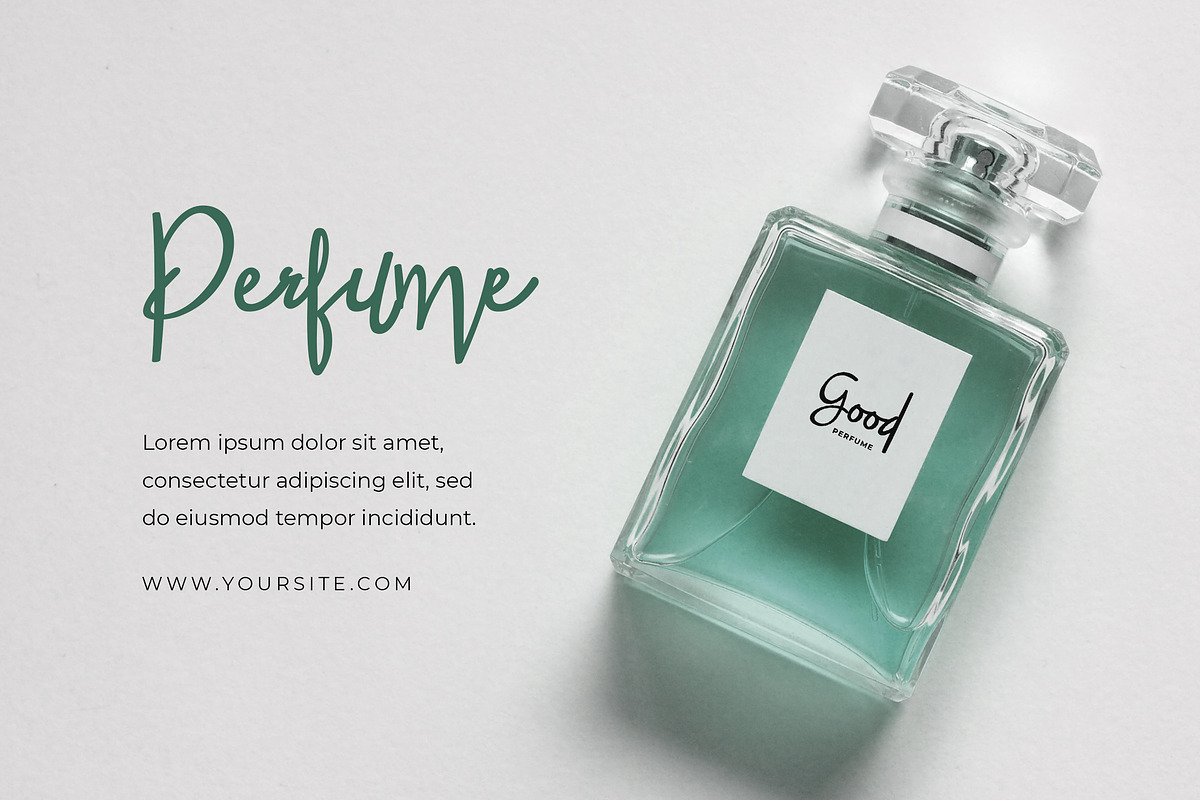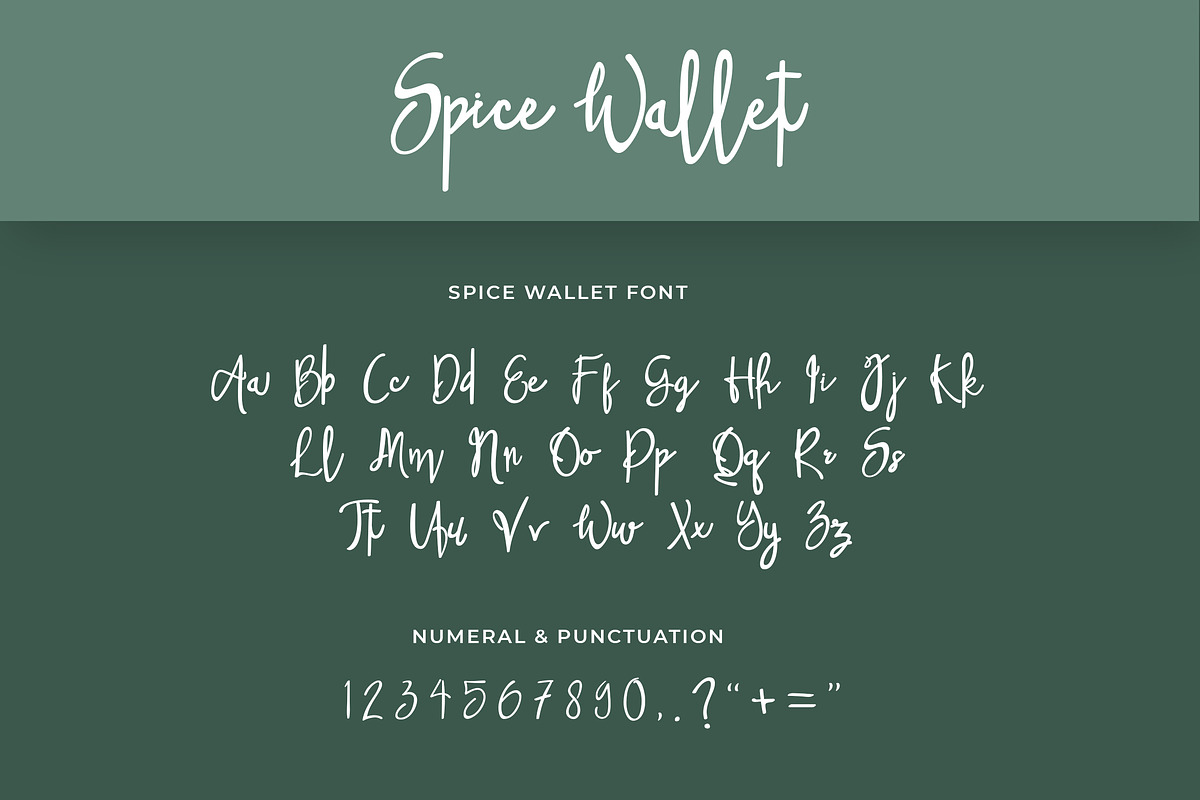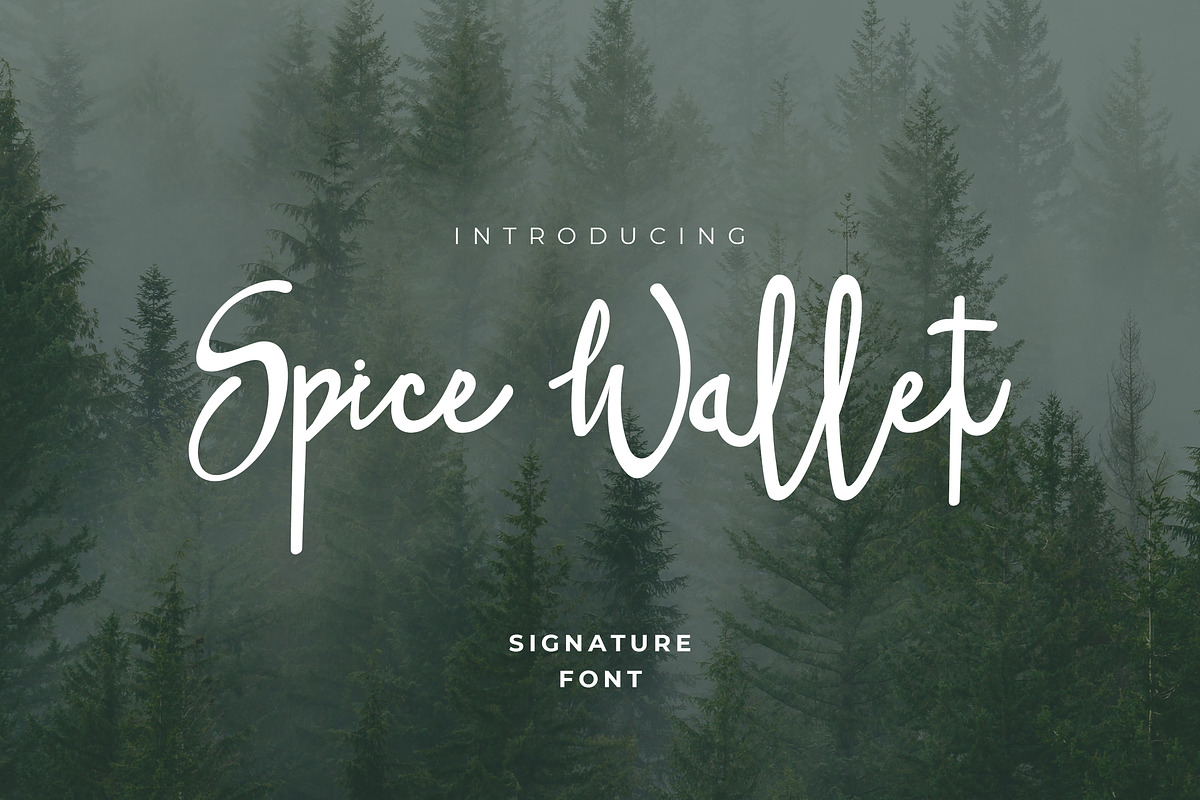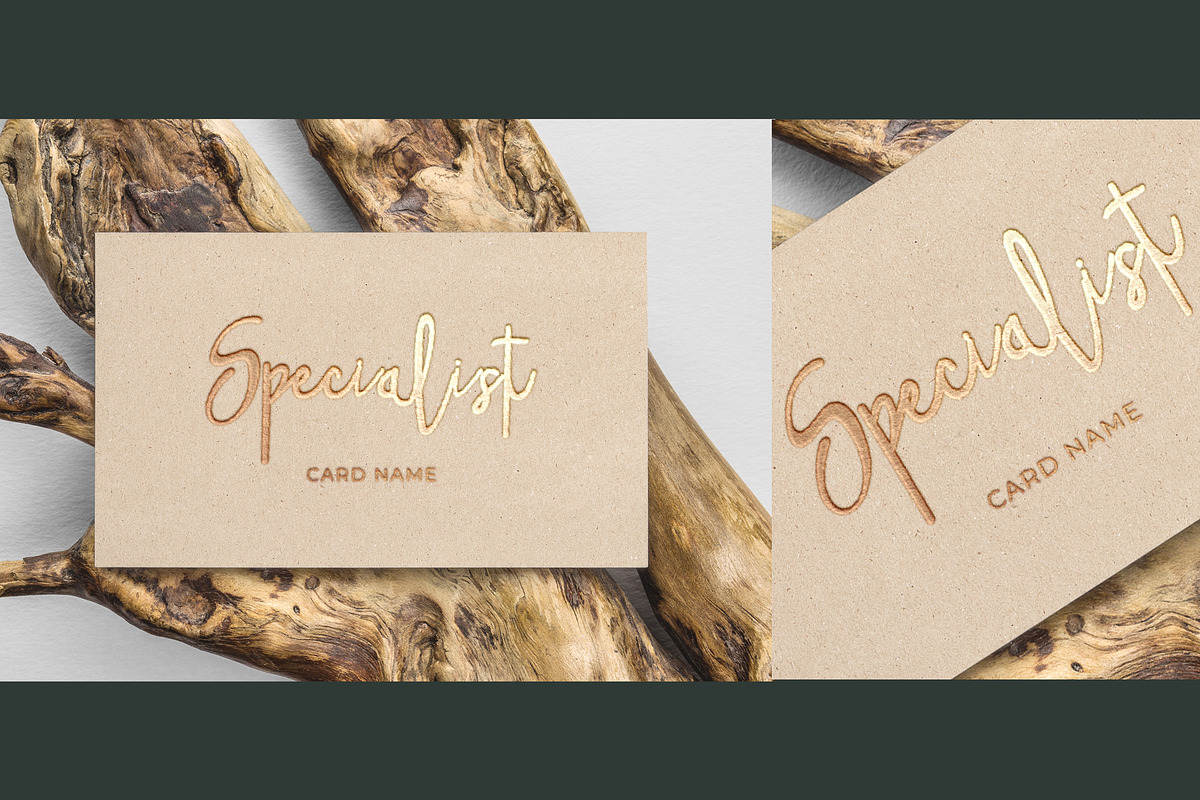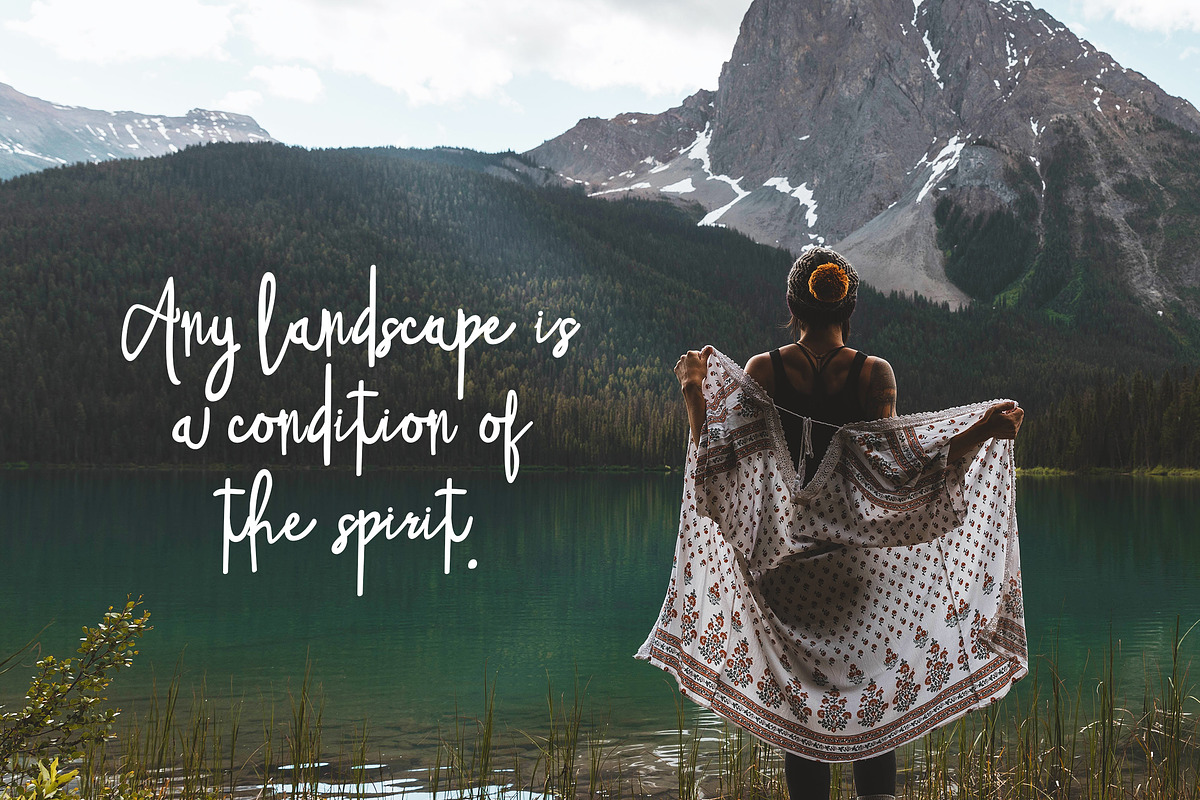
Spice Wallet Handwritten Font
Spice Wallet is handwritten font, which looks like a thick pen stroke. Form orientation is generally flowing horizontally, this is a reflection of composure in writing, we set the rhythm of each glyph so that the combination of high and low letters is very soft, try it, whatever you type with this font looks very calm.
Spice Wallet Handwritten Font by UICreative fits naturally into Branding, posters, packaging, typography.